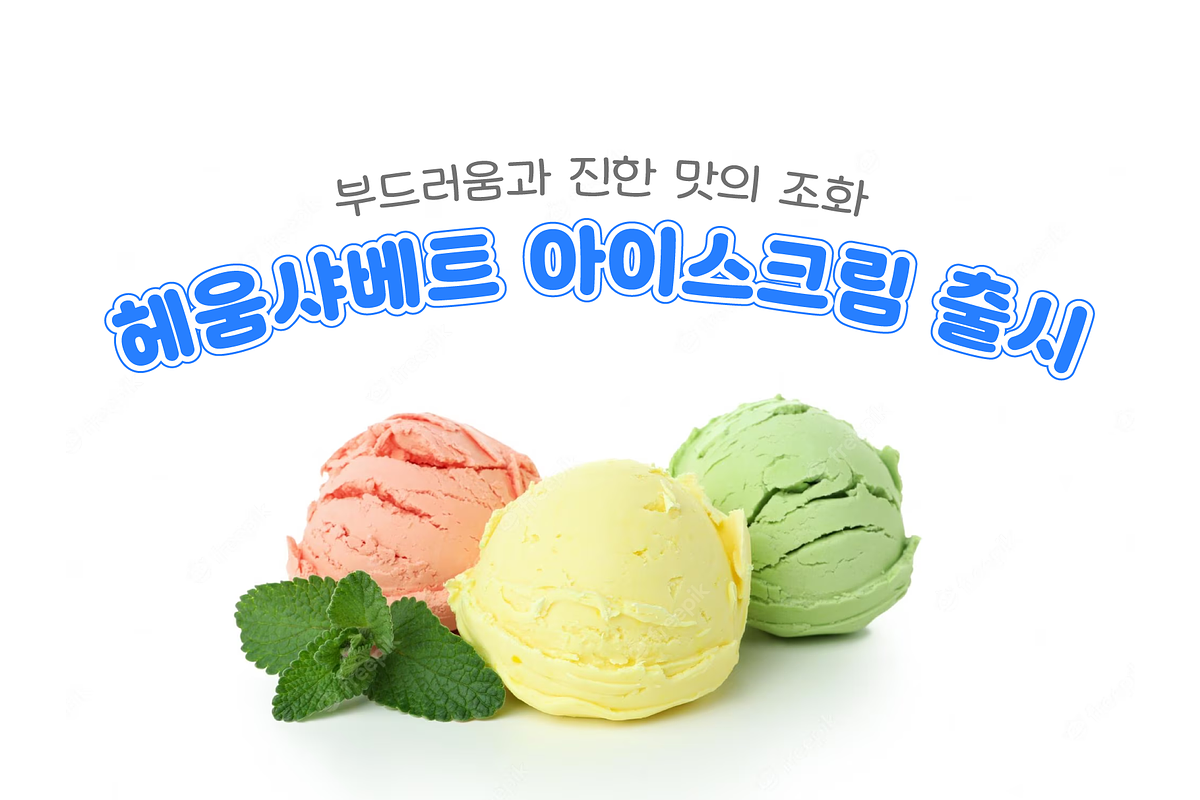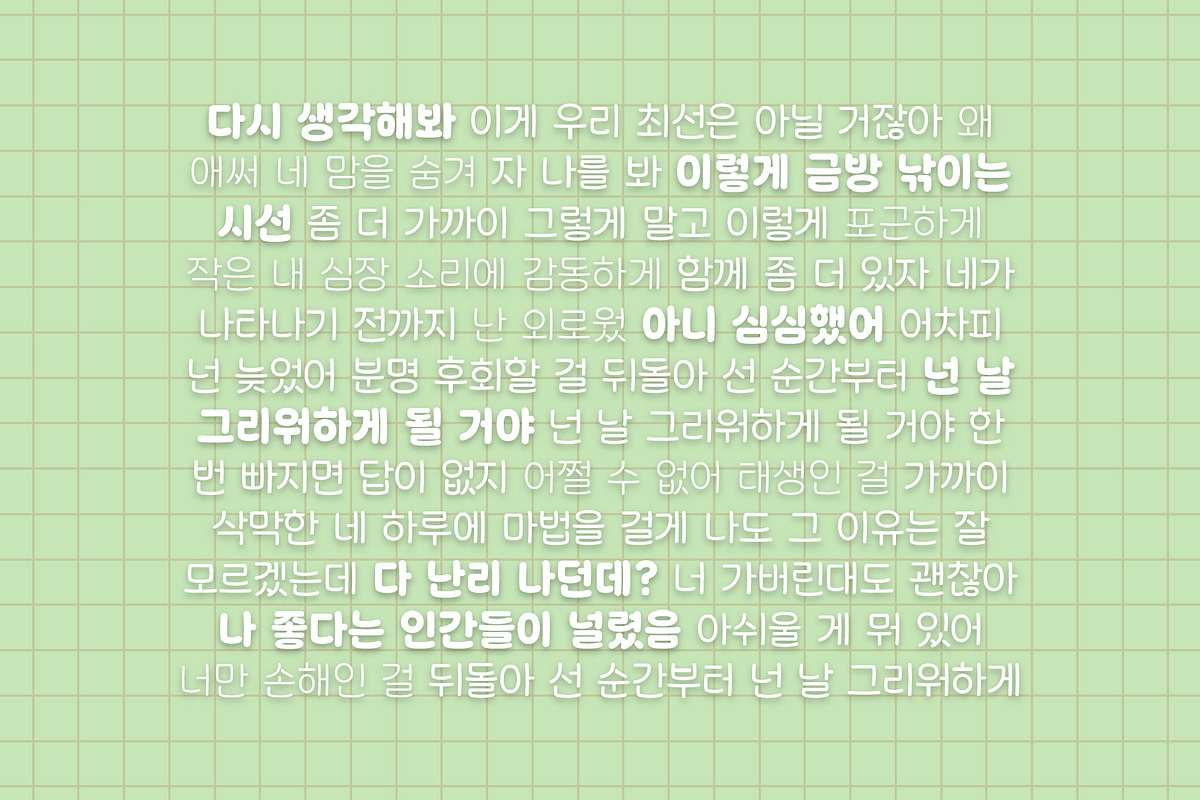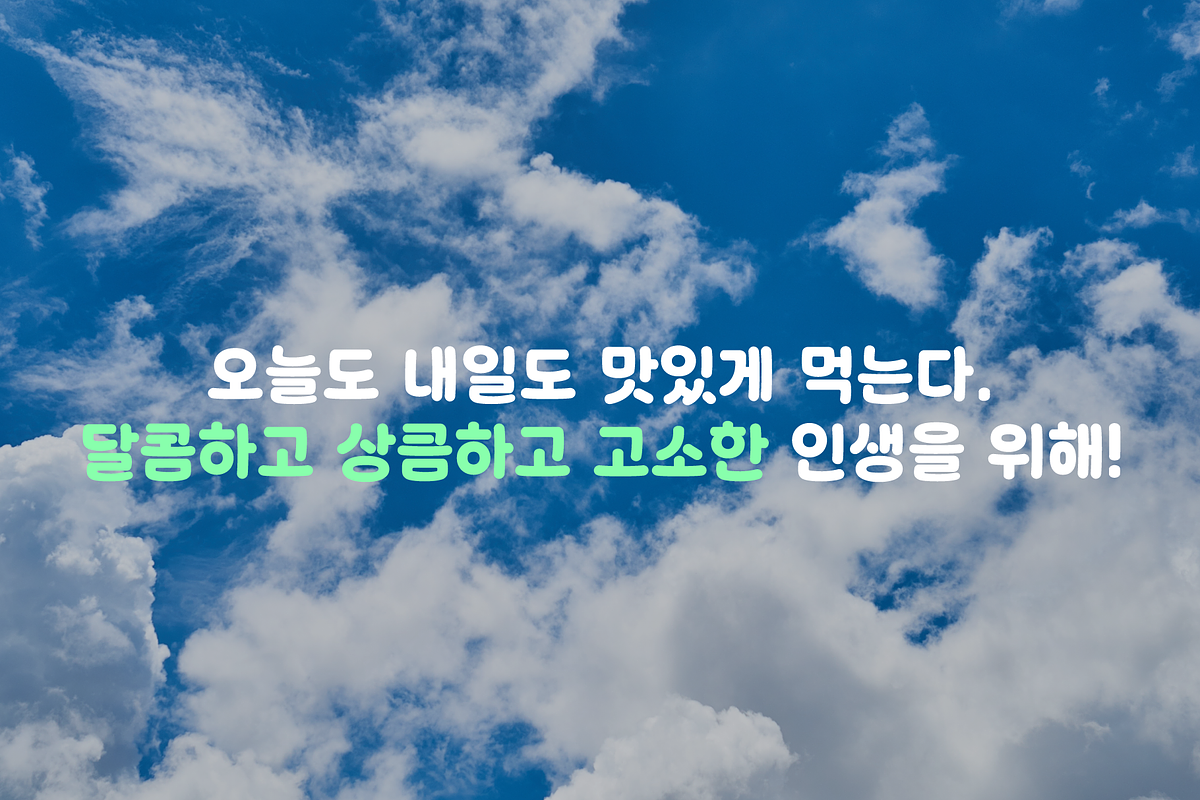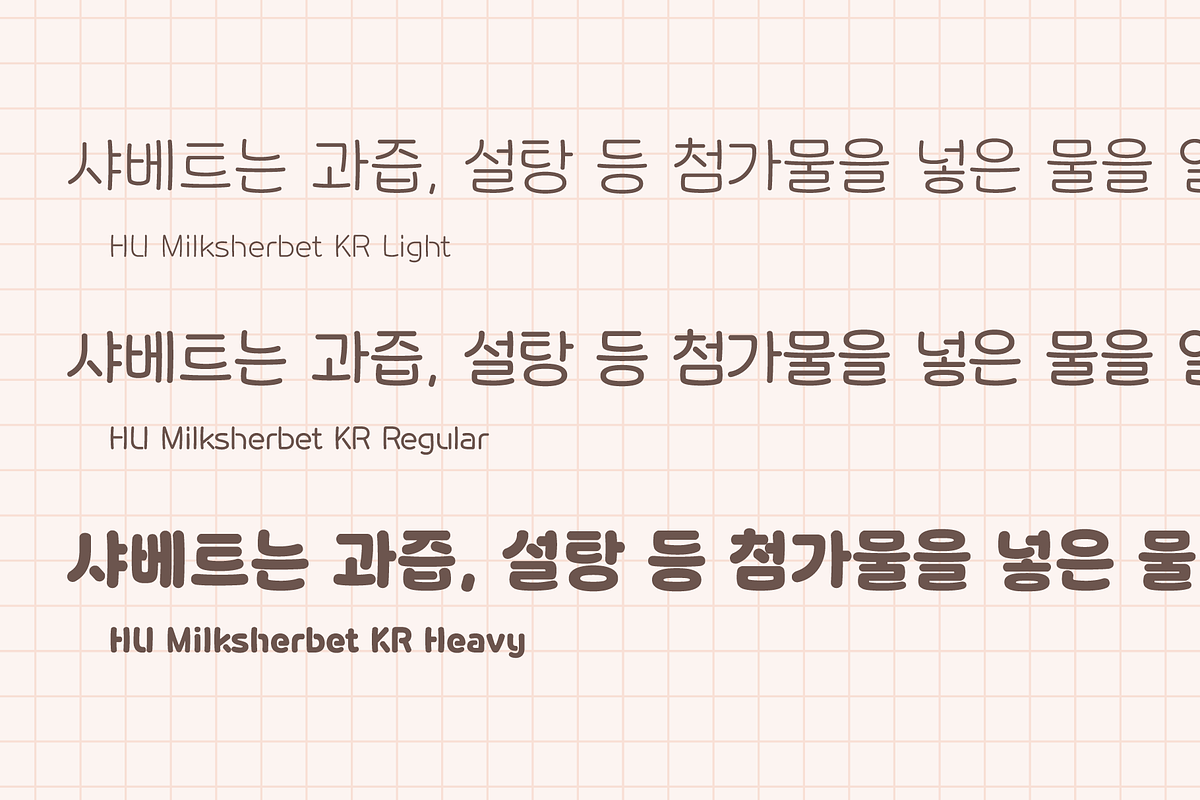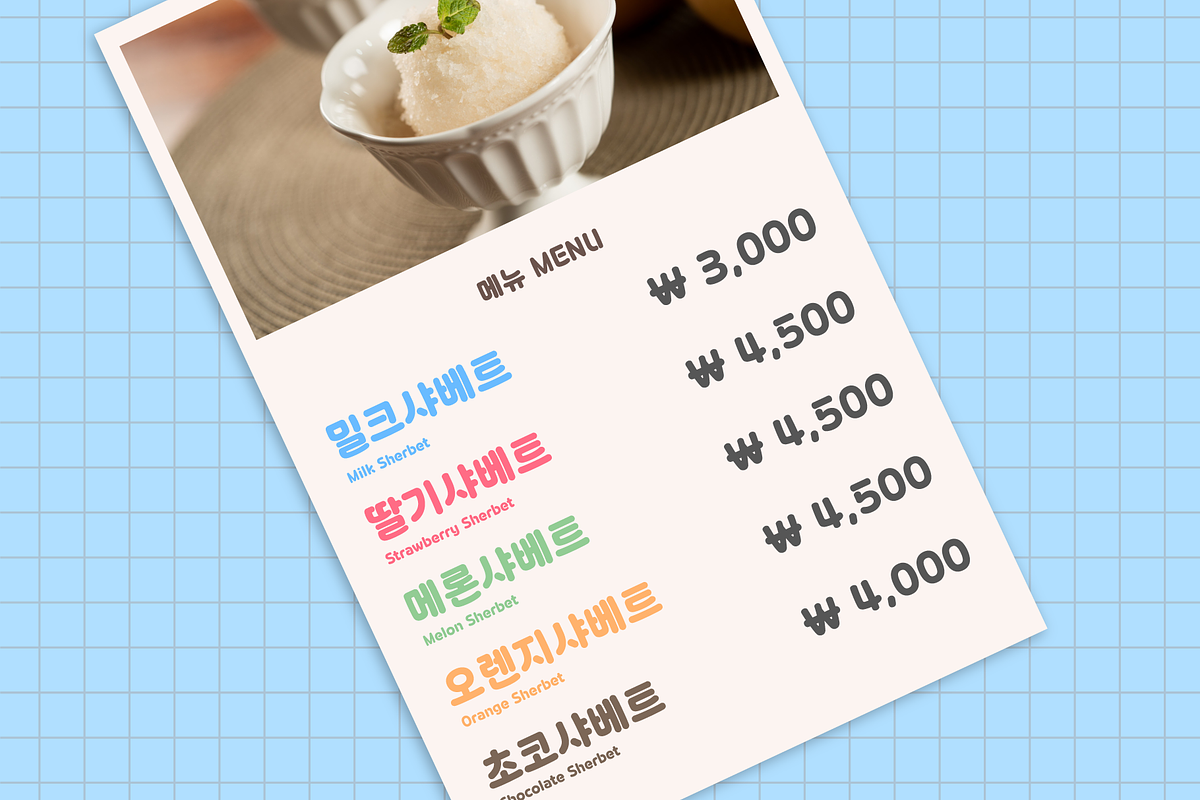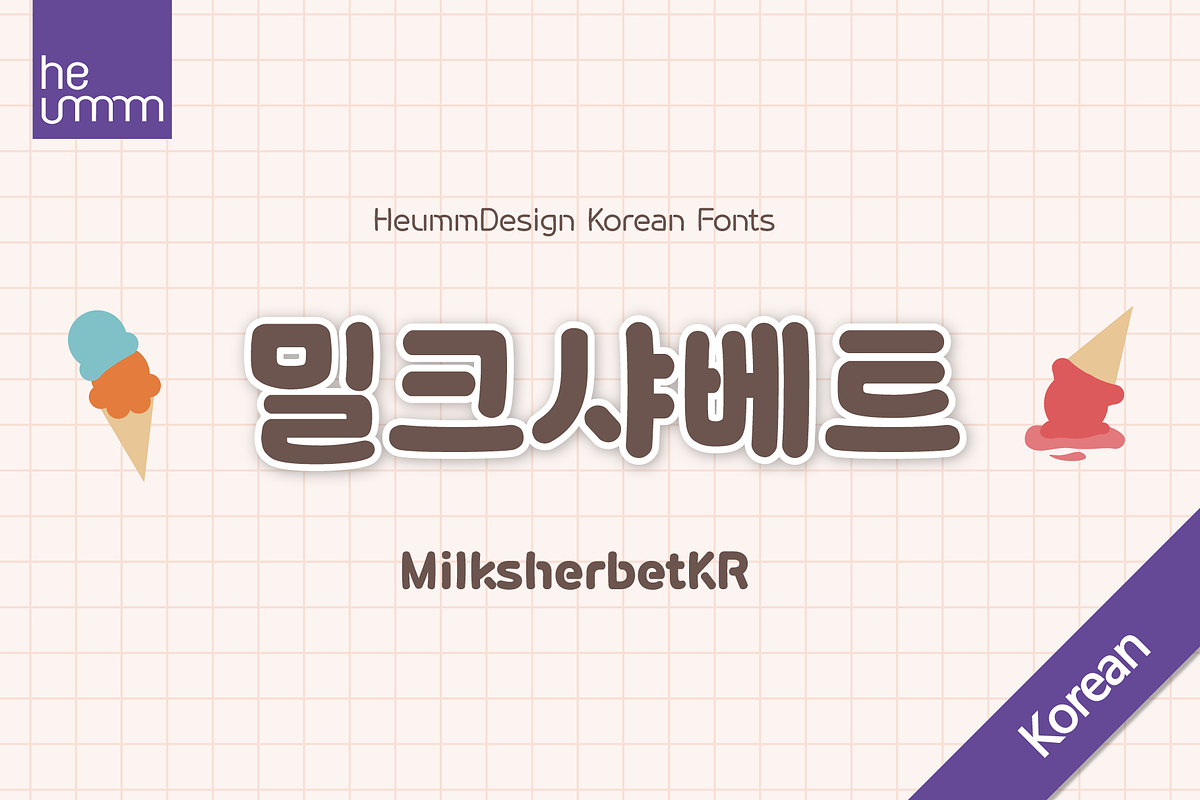
HU Milksherbet KRwas inspired by milk sherbet, which is enjoyed cold on a hot summer day.
Rounded shapes and soft stroke endings make the typeface look cute.
Heavy works great for headlines with its extra-heavy stroke weight and size, while Regular and Light are best for body text.
This font contains KOREAN
There is 3 weight of HU Milksherbet KR : Light, Regular, Heavy
- Multilanguage (Basic Latin, Western European, Euro, Catalan, Baltic, Turkish, Central European, Romanian, Pan African Latin, Dutch, Afrikaans, Basic Greek, Basic Cyrillic, Mathematical Operators)
- 12258 Glyphs